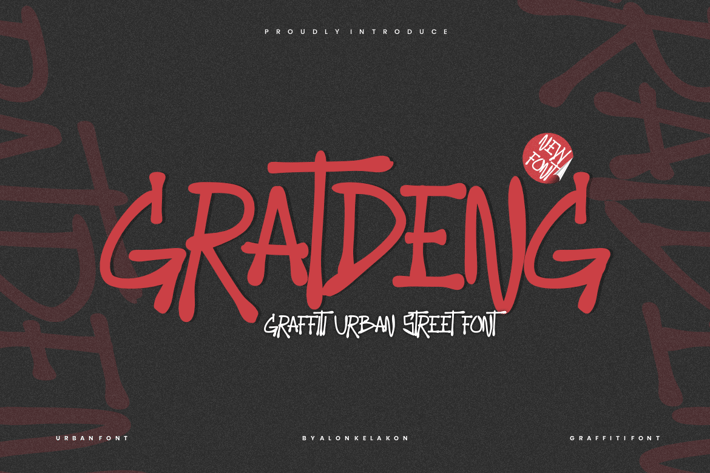
Gratdeng - Graffiti Urban Street Font
Gratdeng Font is unique . Ready to use for your design like labeling, movie sceen, poster, movie title, gigs, album covers, logos, and much more.